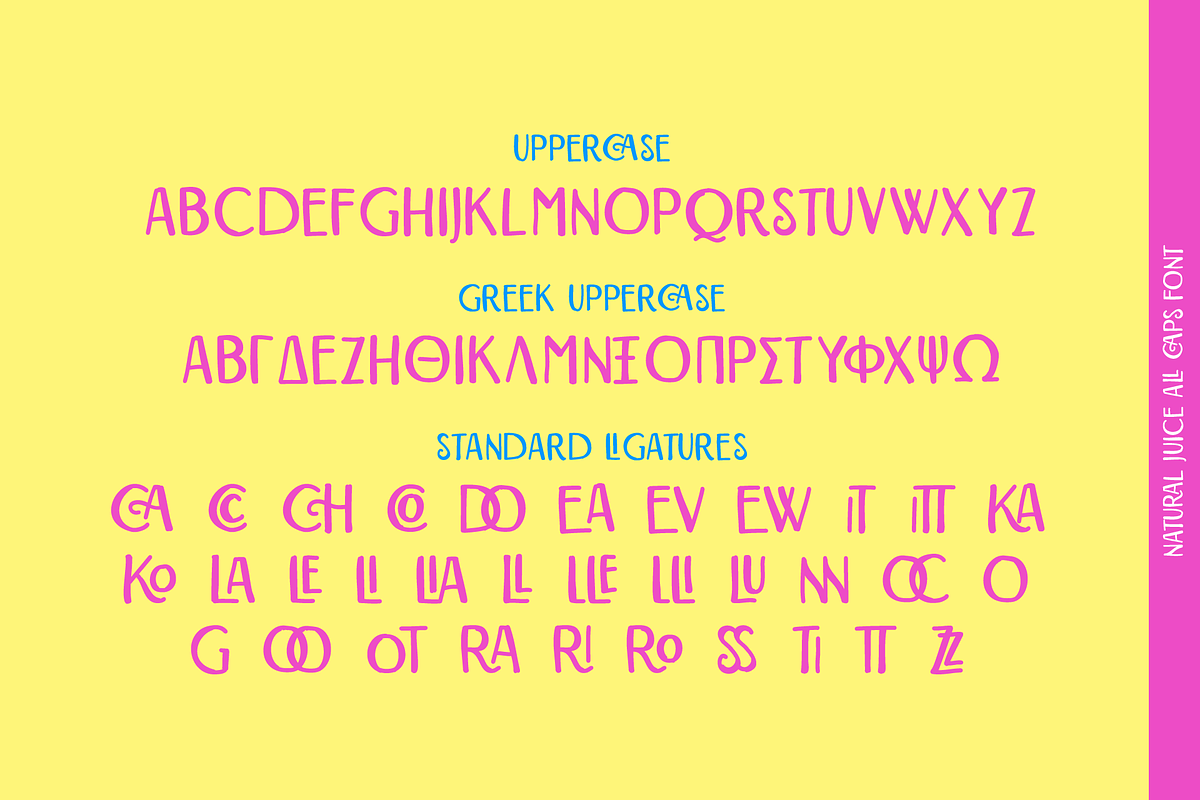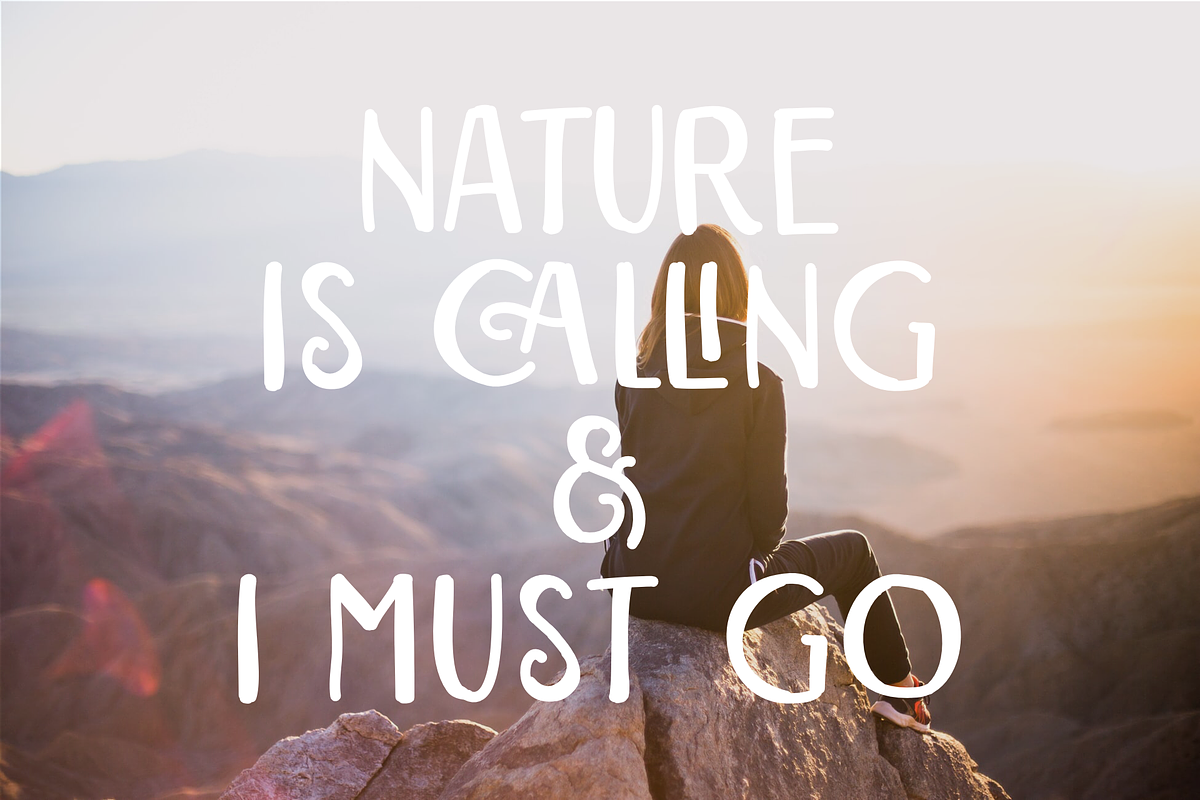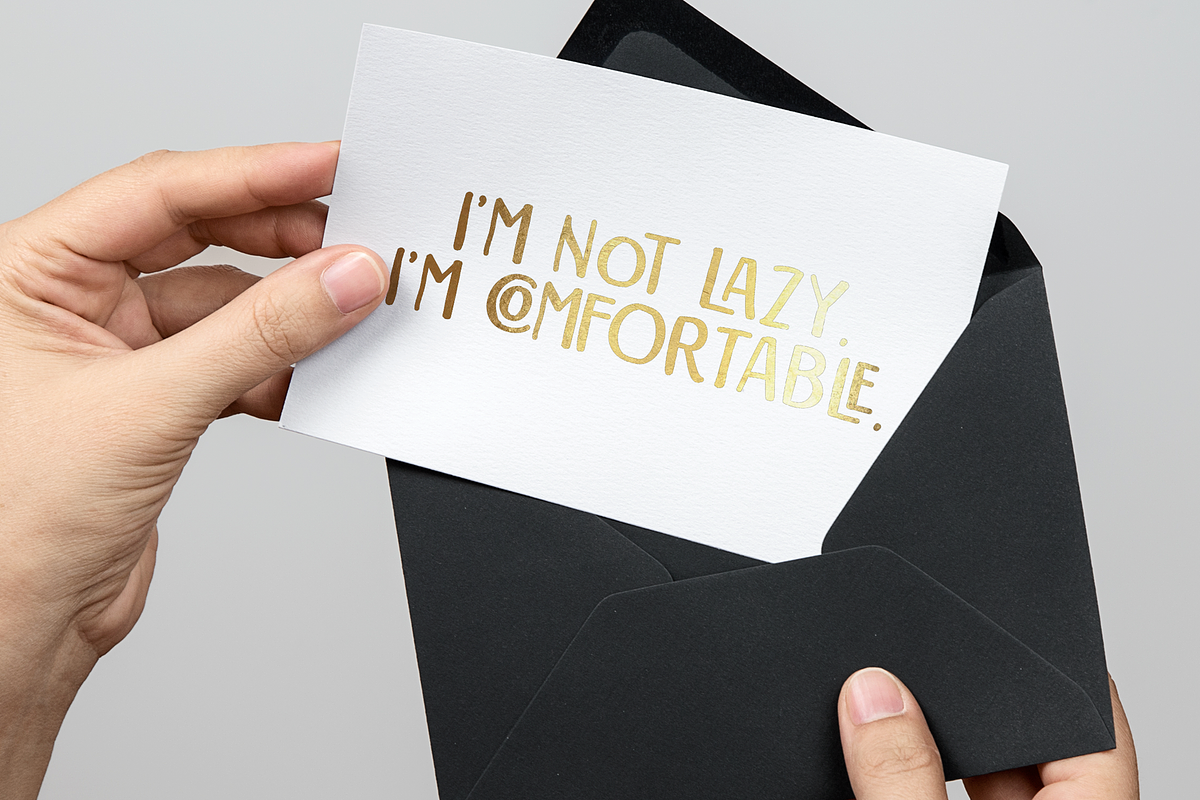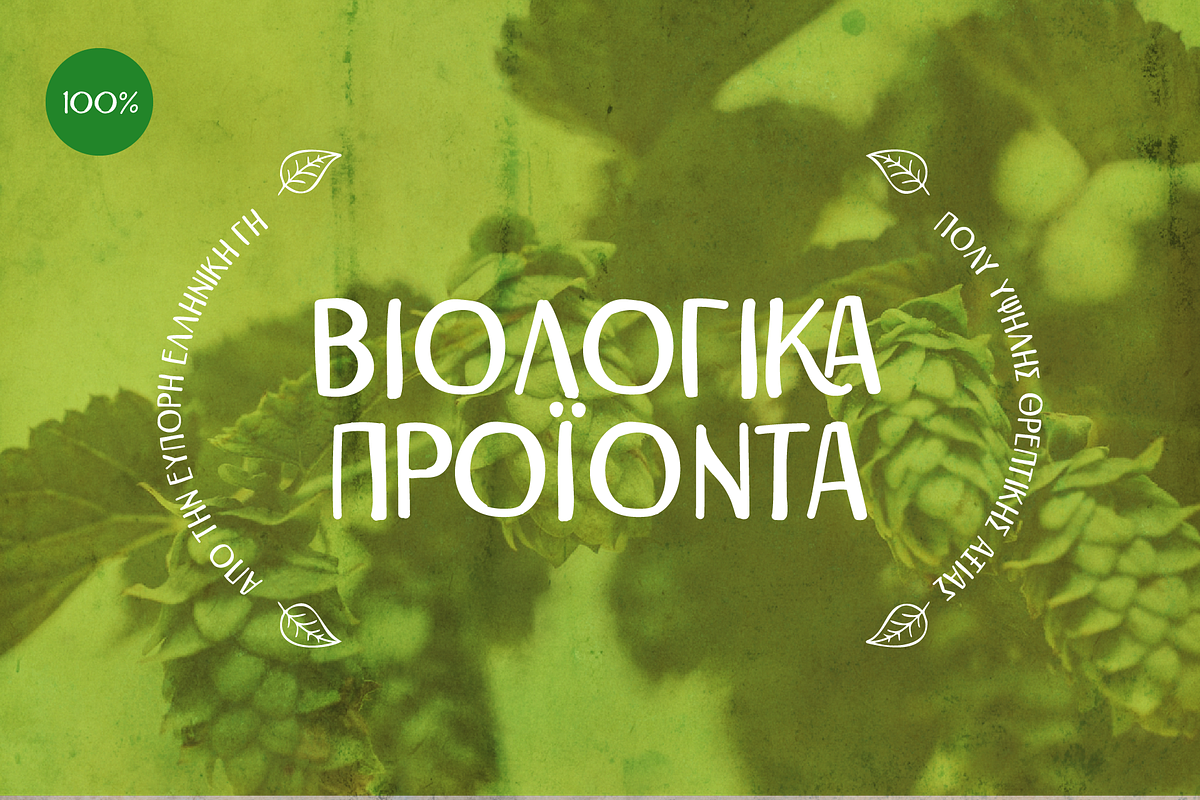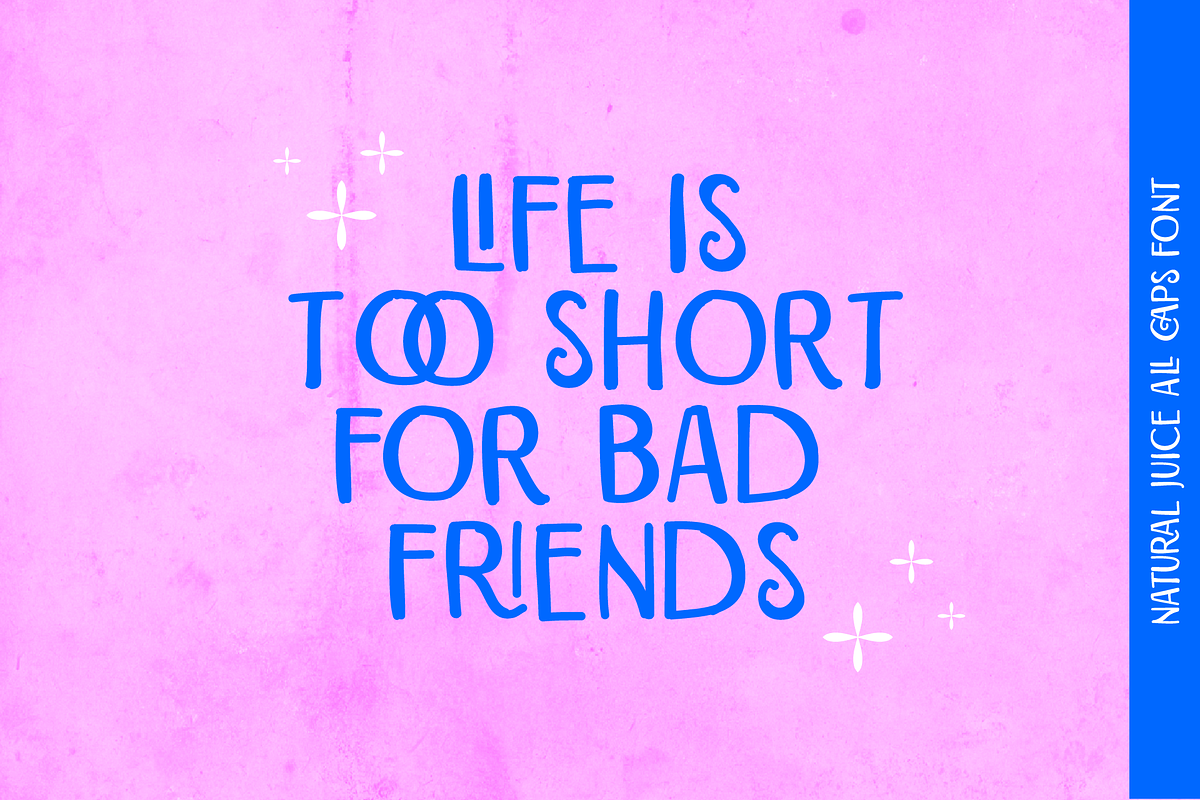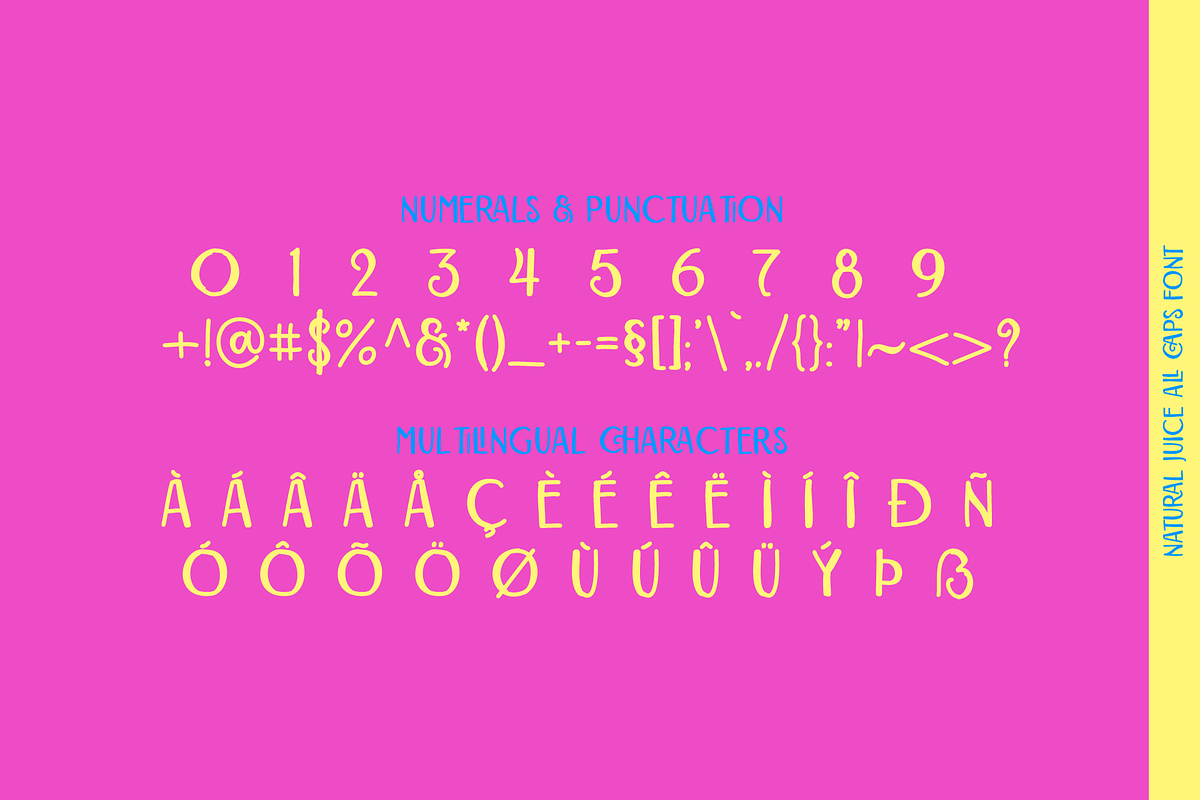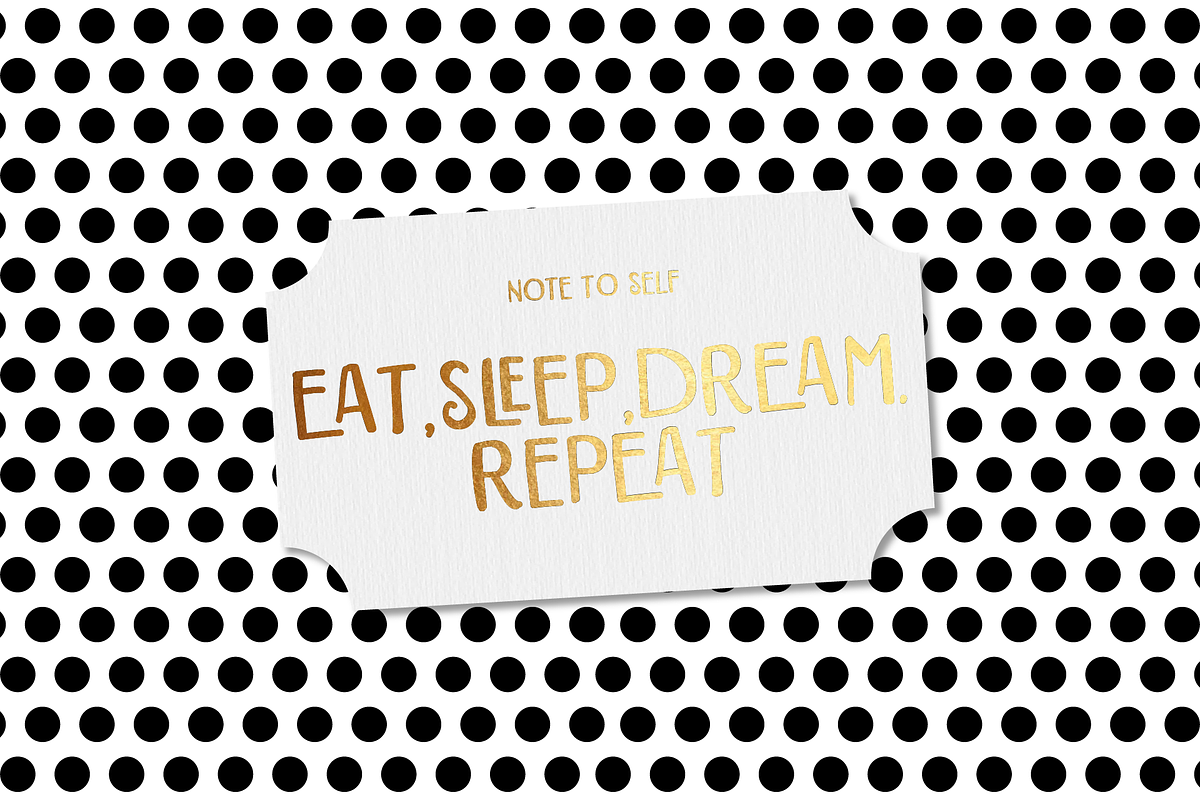
Natural Juice All Caps Font
What is your favorite juice? Introducing Natural Juice! The vintage all caps marker font you’ve been searching for!
This little gem is perfect for your special projects like headers, packaging, crafts, greeting cards and anything you can come up with.
It comes with a lot of opentype ligatures in order to give your design a unique look. Last but not least Natural Juice supports multilingual and includes Greek alphabet with opentype features as well.
- It comes with a lot of opentype ligatures in order to give your design a unique look.
- Last but not least Natural Juice supports multilingual and includes Greek alphabet with opentype features as well.
Natural Juice All Caps Font by George Bourle fits naturally into Branding, posters, packaging, typography.